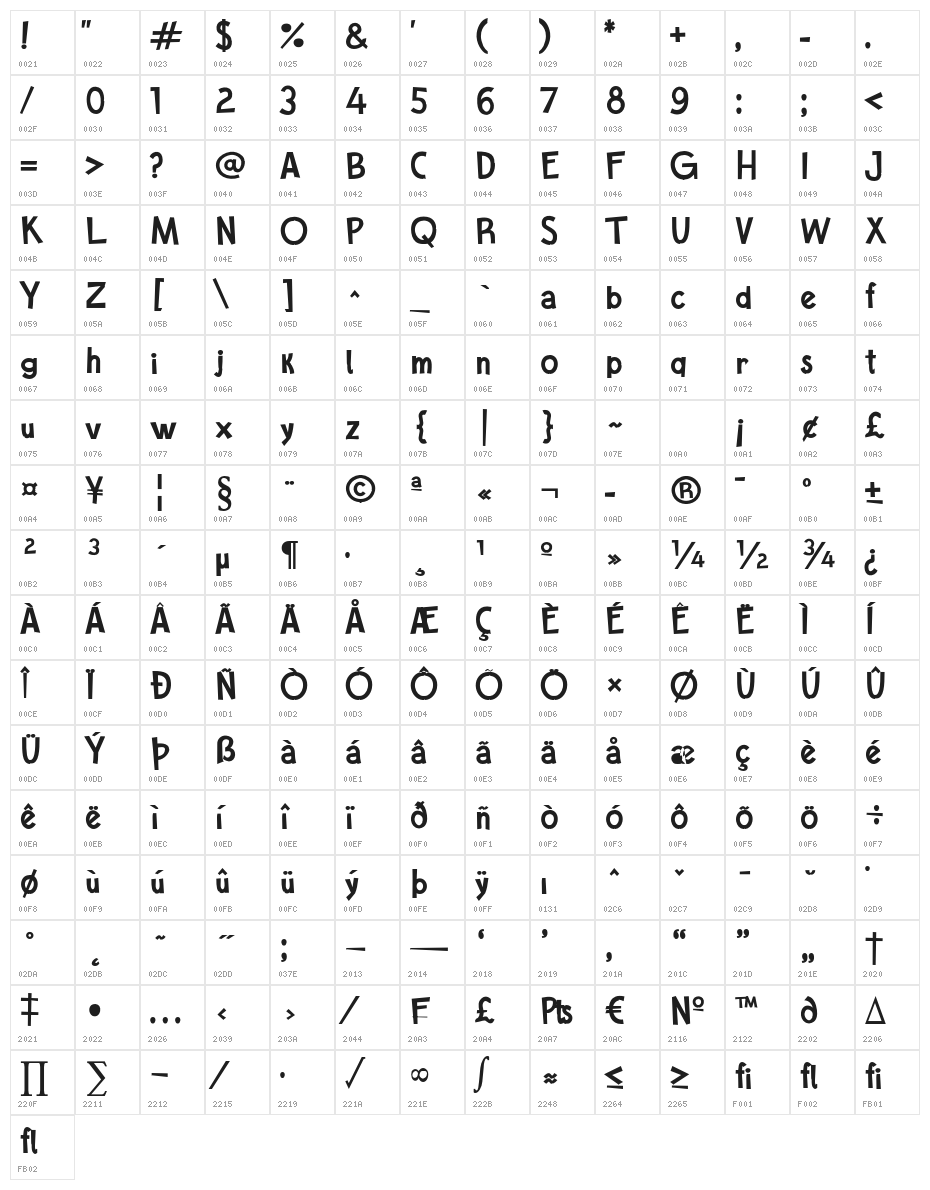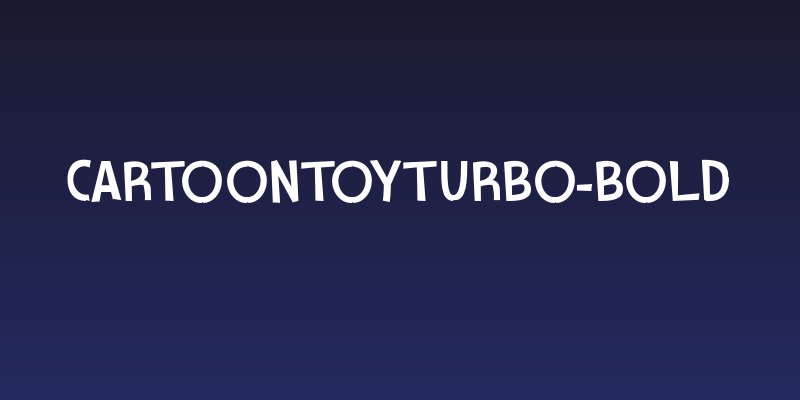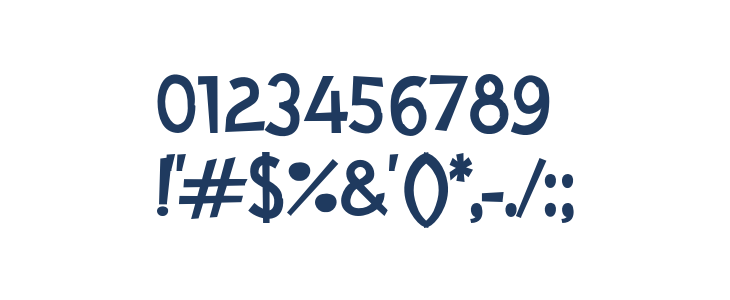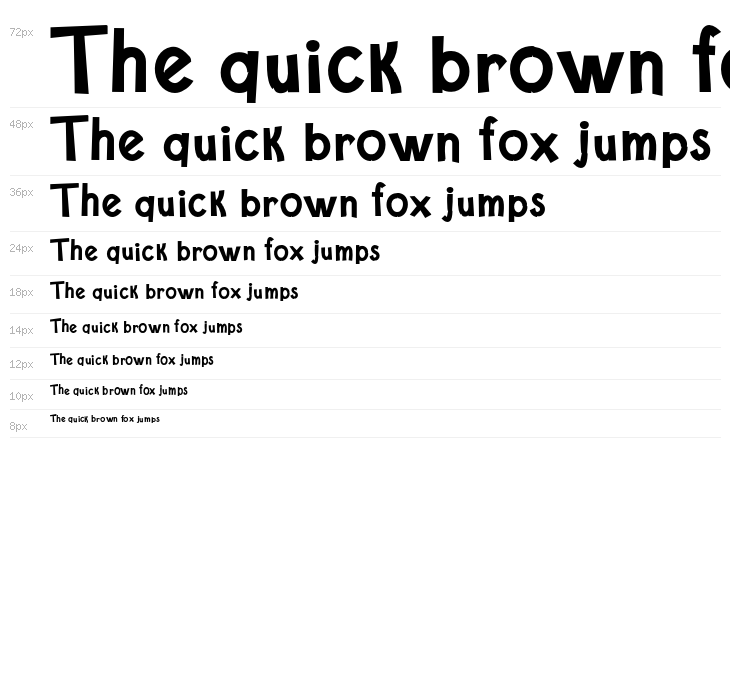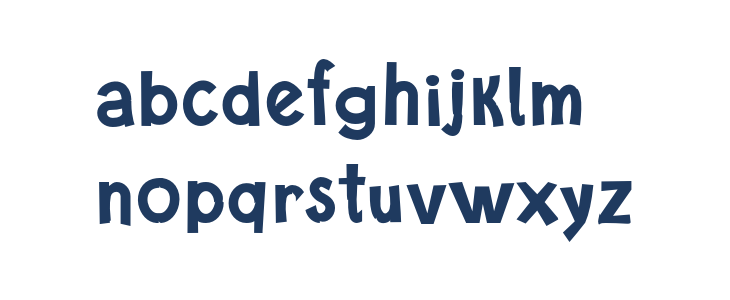
CartoonToyTurbo-Bold Font
CartoonToyTurbo-Bold Description
This playful and bold font features a whimsical, cartoon-like style with exaggerated curves and a slightly uneven baseline, giving it a lively and dynamic appearance. The characters are thick and rounded, with a friendly and approachable feel. The uppercase letters are slightly taller than the lowercase, maintaining a consistent width throughout. The numbers and special characters follow the same playful design, making it suitable for projects aimed at children or those requiring a fun and informal touch. Its boldness ensures high readability, even at smaller sizes.
| Overall Style | Playful, Cartoon |
| Proposed Projects | Ideal for children's books, toy packaging, playful branding, and comic strips. |